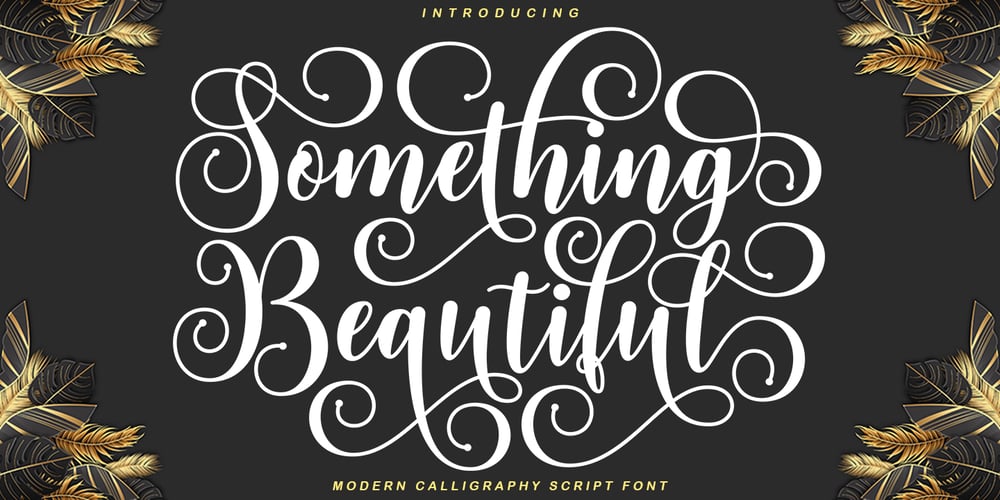
Something Beautiful Font Family was designed by M Irvan Syouqi S and published by IRF Lab Studio. Something Beautiful contains 2 styles and family package options. Galista is a modern and casual script font. It has beautiful swashes and it’s perfect for logos, wedding invitations, branding and much more.